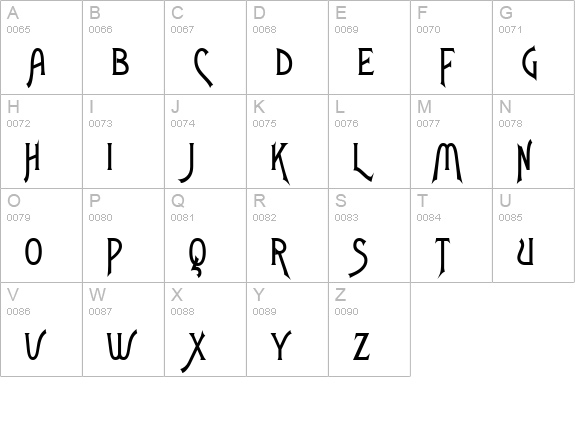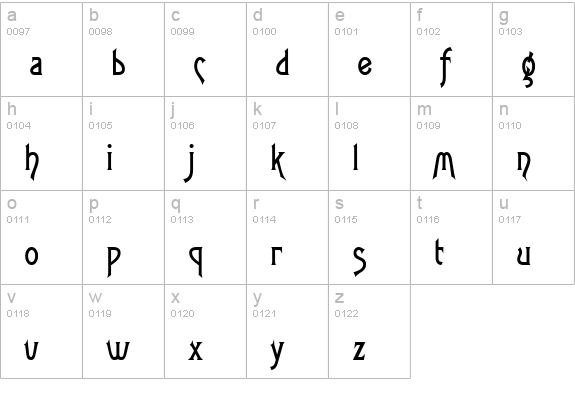
Fletch Condensed Bold is a strong, high-contrast, condensed-width variant in the Fletch typeface family \xE2\x80\x94 well suited to headlines, attention-grabbing titles, and strong calls-to-action.
Fletch Condensed Bold font is a striking and powerful typeface that exudes confidence and modernity. Its bold weight and condensed design make it perfect for headlines, titles, and any other design elements that need to make a strong impact. The sharp angles and clean lines of this font give it a sleek and contemporary look that is sure to catch the eye. Best of all, Fletch Condensed Bold font is available for free download at FontsMarket.com. Whether you're a designer looking to add a bold touch to your projects or a business owner in need of a powerful branding element, this font is the perfect choice. Download it today and unleash the full potential of your designs with Fletch Condensed Bold font.